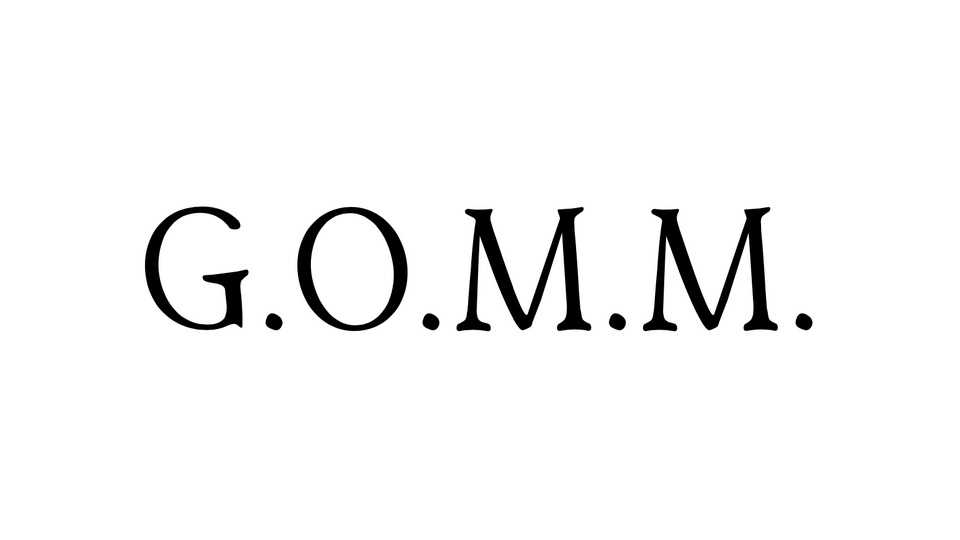
Download GOMM font, a WIP Latin serif typeface based on Teri’s handwriting. The name G.O.M.M. is an abbreviation for “Georgia on My Mind”. GOMM is a print-only typeface as of now and is not optimized for web yet.
Designer: Teri Ke